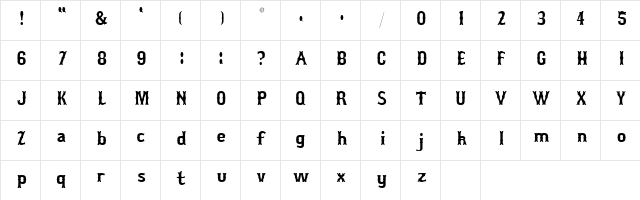
Bosox Regular
Design Context for Bosox Typeface
Bosox is a composed and adaptable typeface that performs quietly and consistently across a wide range of design contexts.